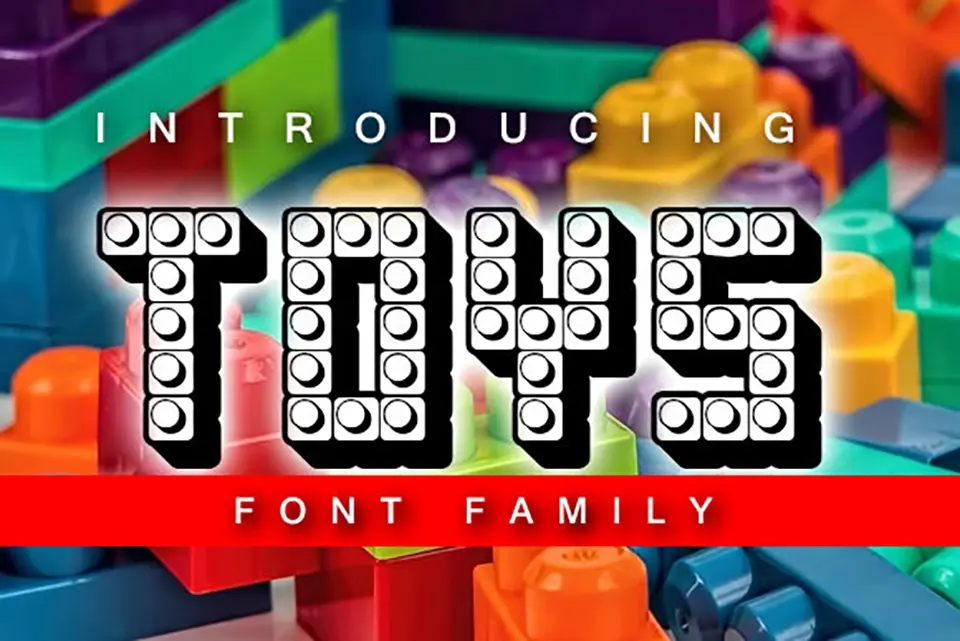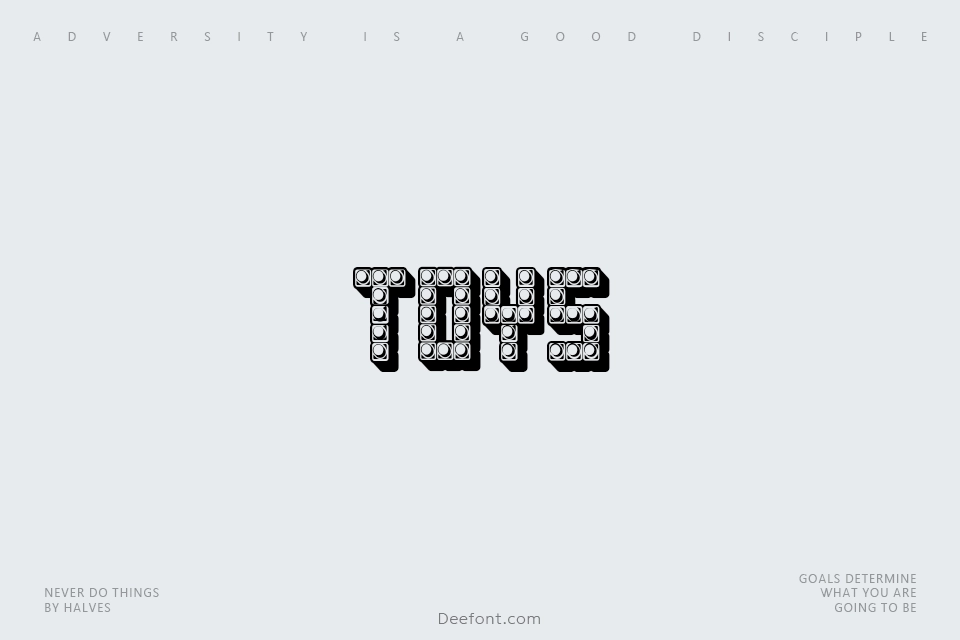
Toys Font
Toys is a vibrant and playful decorative font that brings joy and creativity to your design projects. With its whimsical character and charming aesthetic, this font is perfect for eye-catching headlines, creative branding, children's content, and festive designs. The Toys font family offers versatility with four distinct styles, allowing designers to adapt their vision while maintaining a consistent, engaging visual identity. Ideal for posters, packaging, invitations, and any project requiring a fun, memorable typographic touch.